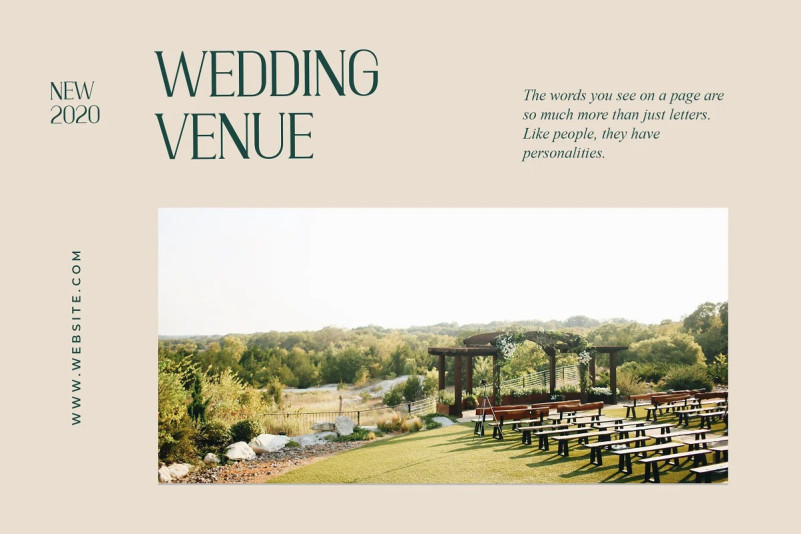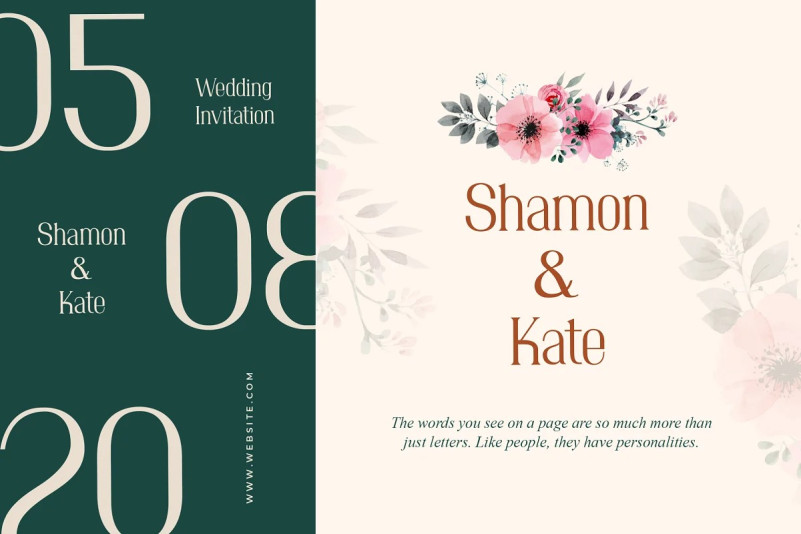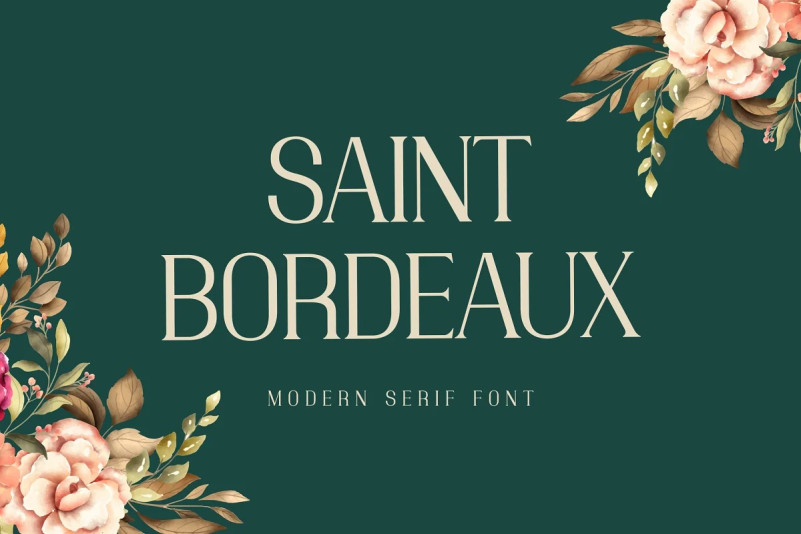
Saint Bordeaux Font
Saint Bordeaux Font – Serif Display Font with its unique curves and cut-ins making it one of the most memorable caps fonts on the market .This font is perfect for fashion related branding or editorial design and displays both masculine and feminine qualities. Also you use this font on Logo & Label Design, Apparel Design, Music, Advertising, T-shirts, Brochures And more!